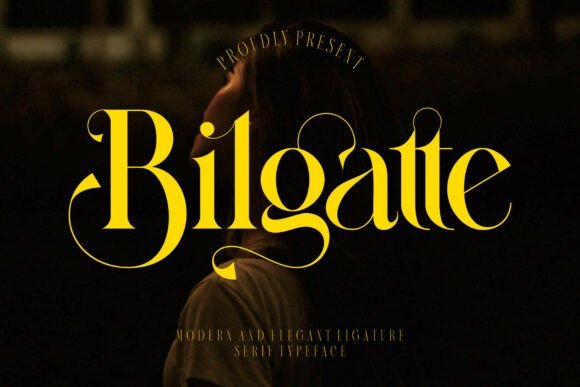
The Perfect Blend of Elegance and Readability
As a designer, there’s nothing quite like the thrill of discovering a new font that perfectly captures the essence of your project. It’s the moment when all the pieces come together, and your design goes from good to great. For me, that moment happened when I stumbled upon the Bilgatte Font. This refined serif typeface is more than just a pretty face – it’s a masterclass in balance and sophistication.
Bilgatte Font is designed to deliver a unique blend of elegance and readability, making it the perfect choice for a wide range of design projects. From luxurious branding and editorial layouts to modern websites and high-end invitations, Bilgatte’s versatility knows no bounds. Its carefully crafted letterforms and stylish ligatures create smooth connections between characters, adding a touch of refinement to any design. Whether you’re a seasoned pro or just starting out, Bilgatte Font is an invaluable asset in your design toolkit.
Bilgatte Font Key Features
- Unique Characteristics: Bilgatte Font features a unique blend of modern and traditional elements, with intricate details and ornaments that set it apart from other fonts.
Bilgatte Font Review
I’ve had the chance to play around with the Bilgatte Font, and here’s my honest take on it.
- ✨ Unique Design: The Bilgatte Font has a distinct, hand-drawn feel that sets it apart from more traditional fonts.
- ✨ High Legibility: Despite its quirky design, the font is surprisingly easy to read, even at smaller sizes.
- ✨ Versatile: The font comes in a range of weights and styles, making it suitable for everything from headings to body text.
- ⚠️ Limited Font Family: While the Bilgatte Font has a range of weights and styles, it’s still a relatively small font family compared to other popular fonts.
- ⚠️ Not Suitable for All Contexts: The font’s unique design may not be suitable for all projects or applications, particularly those that require a more conservative or traditional look.
The Bilgatte Font is a great choice for designers who want to add a touch of personality to their projects. While it may not be suitable for every context, its unique design and high legibility make it a solid option for those looking to stand out from the crowd.
Getting the Most Out of Bilgatte Font
Some tips for getting the most out of Bilgatte Font include:
- Experiment with different font sizes and colors to create a visually appealing design
- Use the font’s unique features, such as its script-like style, to add personality to your design
- Combine Bilgatte Font with other fonts to create a unique and interesting typography
Bilgatte Font is commonly used for:
- Designing invitations and greeting cards
- Creating custom graphics and logos
- Adding a touch of elegance to presentations and reports
Alternatives to Bilgatte Font
Compared to Bilgatte Font, Great Vibes has a more refined and luxurious feel. While Bilgatte Font has a unique, handwritten quality, Great Vibes is more polished and refined.